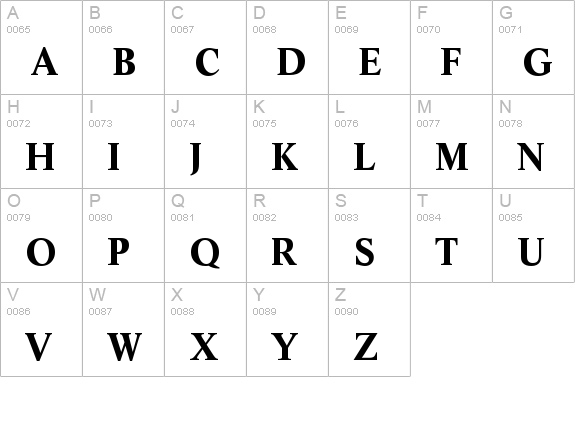
LifeTEE Bold is a strong, high-contrast variant in the LifeTEE typeface family \xE2\x80\x94 well suited to headlines, attention-grabbing titles, and strong calls-to-action.
LifeTEE Bold font is a striking and bold typeface that exudes confidence and modernity. With its clean lines and strong presence, this font is perfect for making a statement in any design project. Whether you are creating posters, headlines, or branding materials, LifeTEE Bold will capture attention and leave a lasting impression. The best part? LifeTEE Bold font is available for free download at FontsMarket.com! This means you can easily access this versatile and eye-catching font to elevate your creative work without any cost. Don't miss out on the opportunity to enhance your designs with LifeTEE Bold font today.